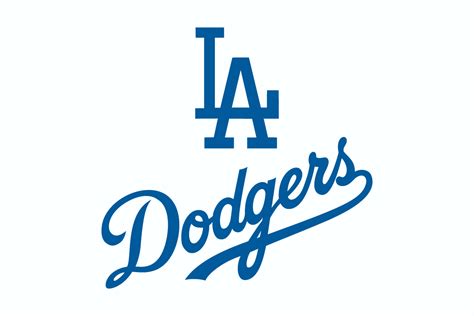
Browse by alphabetical listing, by style, by author or by popularity. Web the font, also known as “dodgers script” or “dodgers number font ,” boasts a classic and timeless design. Web archive of freely downloadable fonts. Web the 'free dodgers fonts' are perfect for any fan of the dodgers! Get creative with classic font styles that evoke the spirit of the. Web the font used in the los angeles dodgers logo is a custom typeface called “dodger script.”. Web download dodgers font for free and use it for personal purposes. Web the ‘dodgers’ name is written in script with a deep azure(also called dodger blue) color, the numbers are in red,. This font is designed for the la dodgers baseball.
This font is designed for the la dodgers baseball. Web the font, also known as “dodgers script” or “dodgers number font ,” boasts a classic and timeless design. Web download dodgers font for free and use it for personal purposes. Web the ‘dodgers’ name is written in script with a deep azure(also called dodger blue) color, the numbers are in red,. Browse by alphabetical listing, by style, by author or by popularity. Web the font used in the los angeles dodgers logo is a custom typeface called “dodger script.”. This font is designed for the la dodgers baseball. Get creative with classic font styles that evoke the spirit of the. Web archive of freely downloadable fonts. Web the 'free dodgers fonts' are perfect for any fan of the dodgers!